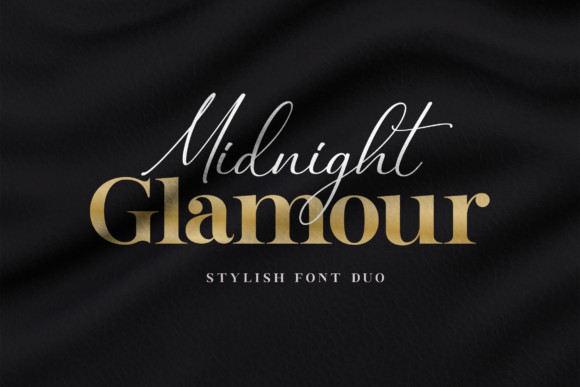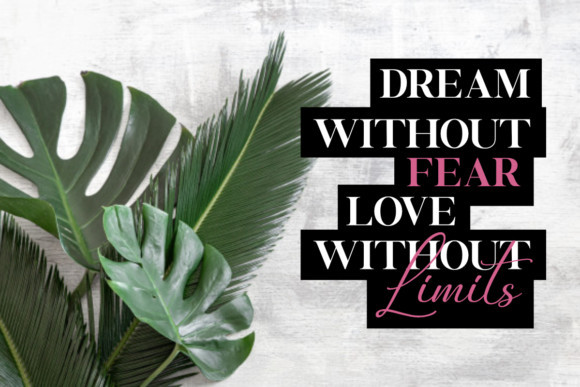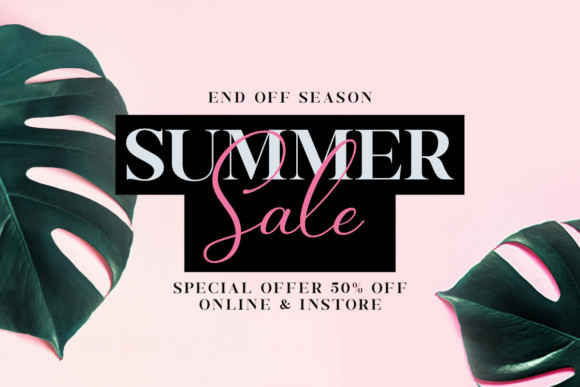
Midnight Glamour Font
Midnight Glamour is an incredibly elegant and versatile duo font (script and serif). Whether you’re looking for fonts for Instagram or calligraphy scripts for DIY projects, this font will turn any creative idea into a true piece of art!